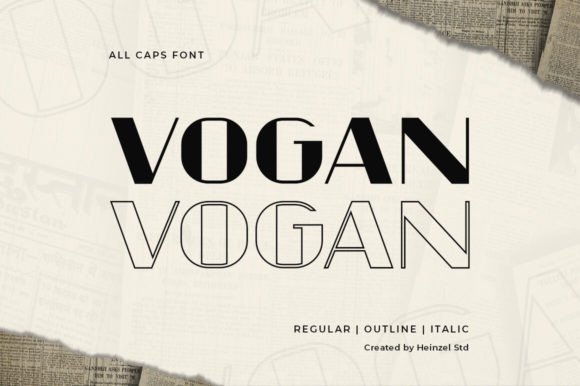
Introducing Vogan Font, the ultimate choice for capturing attention and making a bold statement! This sans serif font family, created by Heinzel Std, is a game-changer for anyone seeking the best font for a headline. With its versatility, captivating design, and captivating features, Vogan Font is a must-have for all your design projects.
The regular version of Vogan Font showcases solid, bold characters that exude confidence and power. Each letter is meticulously crafted to ensure maximum readability, allowing your message to shine through effortlessly. Whether you're designing a magazine cover, a website banner, or a captivating poster, Vogan Font will deliver a captivating impact that instantly grabs attention.
But that's not all - Vogan Font goes beyond expectations with its outline version. This option adds a touch of creativity and uniqueness to your designs, allowing you to experiment with different effects and emphasize specific elements. The outline version seamlessly complements the regular version, providing endless possibilities for your creative visions.
What sets Vogan Font apart from the rest is its ability to evoke emotions and create connections. Its captivating design effortlessly conveys a sense of professionalism, elegance, and sophistication, making it ideal for brands aiming to establish a strong presence. With Vogan Font, your message will resonate with your audience on a deeper level, leaving a lasting impression.
Imagine the impact of a captivating headline that demands attention, draws in the reader, and leaves them wanting more. Vogan Font empowers you to create just that. Its eye-catching appeal sets the stage for captivating storytelling, allowing you to convey your brand's message with utmost clarity and impact.
Vogan Font's versatility extends beyond its captivating appearance. It seamlessly adapts to various design projects, ensuring that your font choice never limits your creativity. From website designs to social media graphics, from product packaging to eye-catching advertisements, Vogan Font effortlessly enhances the visual appeal of every project it graces.